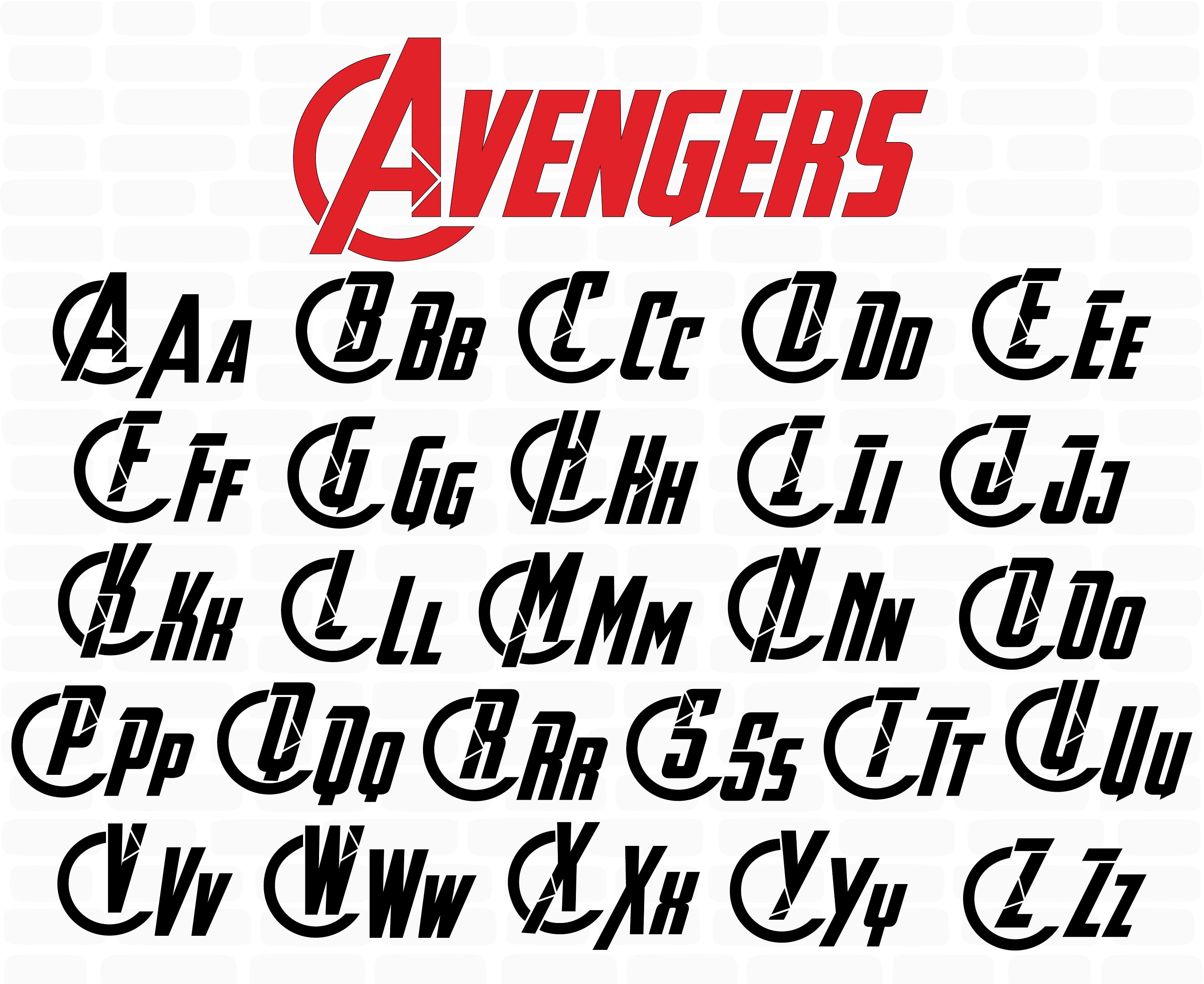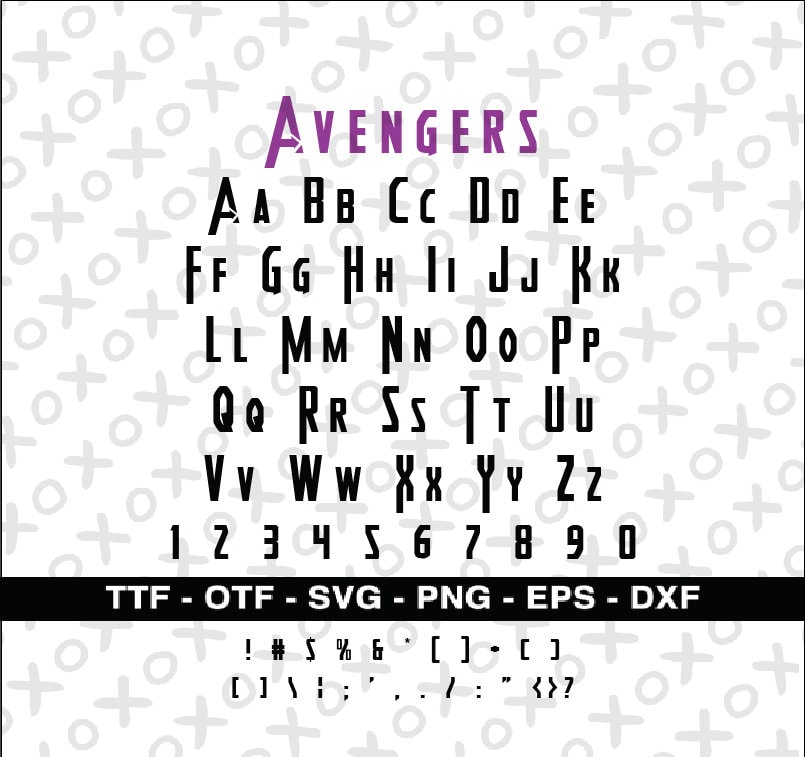
Avengers Font Generator - Convert normal text into avengers fonts with this tool. The avengers font is a typeface inspired by marvel’s iconic superhero team, the avengers. Create text with the heroic spirit of earth's mightiest heroes using the avengers font generator. Create text graphics with avengers font, the font used for the film title in the poster. Copy and paste the generated fonts on social media profiles to make them more appealing. Customize fonts inspired by iron. You can also purchase and download the commercial font, or. Known for its bold and dynamic design, this font.
Create text graphics with avengers font, the font used for the film title in the poster. You can also purchase and download the commercial font, or. Known for its bold and dynamic design, this font. Copy and paste the generated fonts on social media profiles to make them more appealing. Convert normal text into avengers fonts with this tool. The avengers font is a typeface inspired by marvel’s iconic superhero team, the avengers. Customize fonts inspired by iron. Create text with the heroic spirit of earth's mightiest heroes using the avengers font generator.
Known for its bold and dynamic design, this font. Create text with the heroic spirit of earth's mightiest heroes using the avengers font generator. The avengers font is a typeface inspired by marvel’s iconic superhero team, the avengers. Convert normal text into avengers fonts with this tool. Create text graphics with avengers font, the font used for the film title in the poster. Customize fonts inspired by iron. Copy and paste the generated fonts on social media profiles to make them more appealing. You can also purchase and download the commercial font, or.
Create text graphics with avengers font, the font used for the film title in the poster. Known for its bold and dynamic design, this font. The avengers font is a typeface inspired by marvel’s iconic superhero team, the avengers. Convert normal text into avengers fonts with this tool. Copy and paste the generated fonts on social media profiles to make.
Create text graphics with avengers font, the font used for the film title in the poster. Customize fonts inspired by iron. Copy and paste the generated fonts on social media profiles to make them more appealing. Convert normal text into avengers fonts with this tool. You can also purchase and download the commercial font, or.
Create text graphics with avengers font, the font used for the film title in the poster. The avengers font is a typeface inspired by marvel’s iconic superhero team, the avengers. Create text with the heroic spirit of earth's mightiest heroes using the avengers font generator. Known for its bold and dynamic design, this font. Copy and paste the generated fonts.
Create text with the heroic spirit of earth's mightiest heroes using the avengers font generator. You can also purchase and download the commercial font, or. Convert normal text into avengers fonts with this tool. Known for its bold and dynamic design, this font. Copy and paste the generated fonts on social media profiles to make them more appealing.
Known for its bold and dynamic design, this font. You can also purchase and download the commercial font, or. Create text with the heroic spirit of earth's mightiest heroes using the avengers font generator. Customize fonts inspired by iron. Create text graphics with avengers font, the font used for the film title in the poster.
Convert normal text into avengers fonts with this tool. Create text with the heroic spirit of earth's mightiest heroes using the avengers font generator. Copy and paste the generated fonts on social media profiles to make them more appealing. The avengers font is a typeface inspired by marvel’s iconic superhero team, the avengers. You can also purchase and download the.
Customize fonts inspired by iron. The avengers font is a typeface inspired by marvel’s iconic superhero team, the avengers. You can also purchase and download the commercial font, or. Copy and paste the generated fonts on social media profiles to make them more appealing. Create text graphics with avengers font, the font used for the film title in the poster.
You can also purchase and download the commercial font, or. Convert normal text into avengers fonts with this tool. Known for its bold and dynamic design, this font. The avengers font is a typeface inspired by marvel’s iconic superhero team, the avengers. Create text graphics with avengers font, the font used for the film title in the poster.
You can also purchase and download the commercial font, or. Known for its bold and dynamic design, this font. The avengers font is a typeface inspired by marvel’s iconic superhero team, the avengers. Copy and paste the generated fonts on social media profiles to make them more appealing. Create text graphics with avengers font, the font used for the film.
Customize fonts inspired by iron. Copy and paste the generated fonts on social media profiles to make them more appealing. Known for its bold and dynamic design, this font. Create text graphics with avengers font, the font used for the film title in the poster.
Create text with the heroic spirit of earth's mightiest heroes using the avengers font generator. You can also purchase and download the commercial font, or.